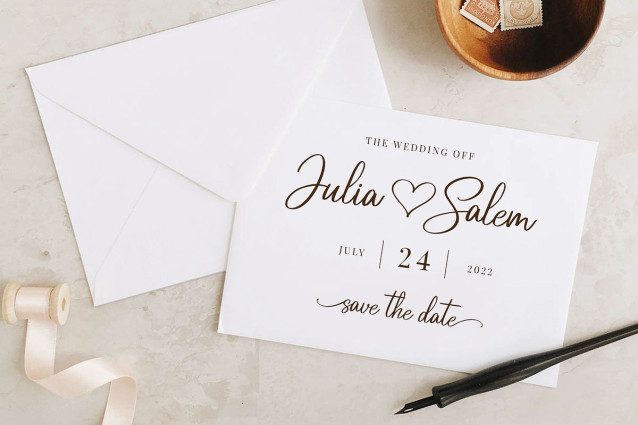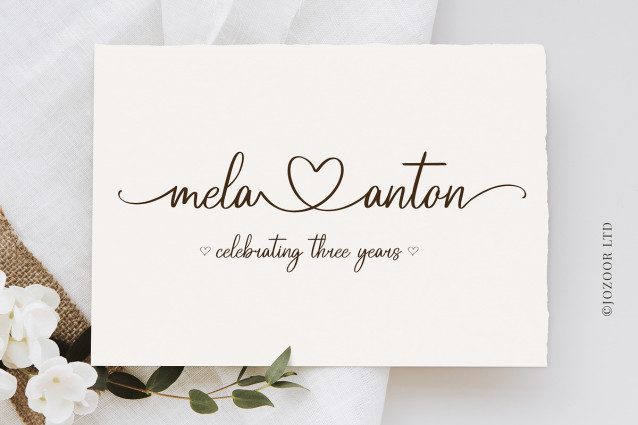
Randy Sofia Script Font
Randy Sofia Script Font is a lovely heart script font for wedding invitations, save the date cards, fine art papery, feminine branding, personal gift cards other romantic projects.